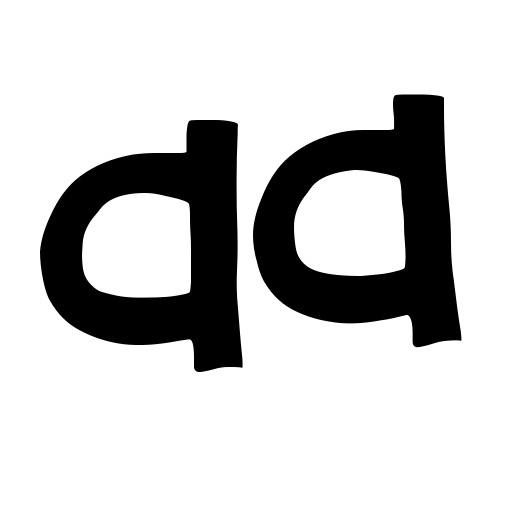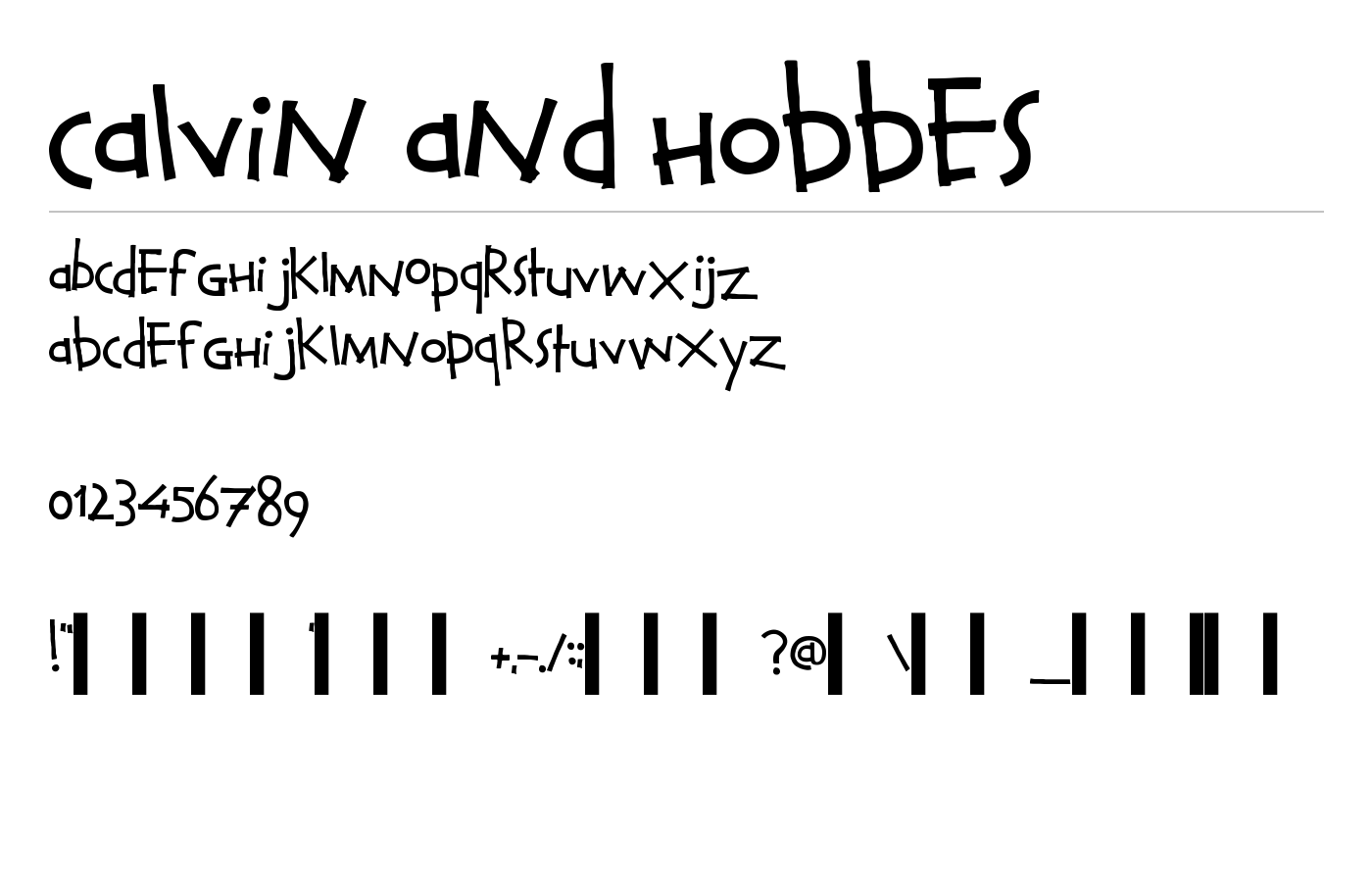
Calvin and Hobbes Font is a playful, hand-drawn sans serif typeface with an irregular, lively character that reflects a casual and whimsical tone. Its tall, narrow letterforms combined with quirky, uneven strokes give it a childlike, comic strip feel, making it perfect for fun, informal designs, especially those aiming to capture a youthful or nostalgic spirit. This font works best in headlines, logos, and creative projects where a distinctive and spirited personality is desired.
Calvin and Hobbes Font
About Calvin and Hobbes Font
| Font family | Calvin and Hobbes Font |
| Designer | Martijn Reemst |